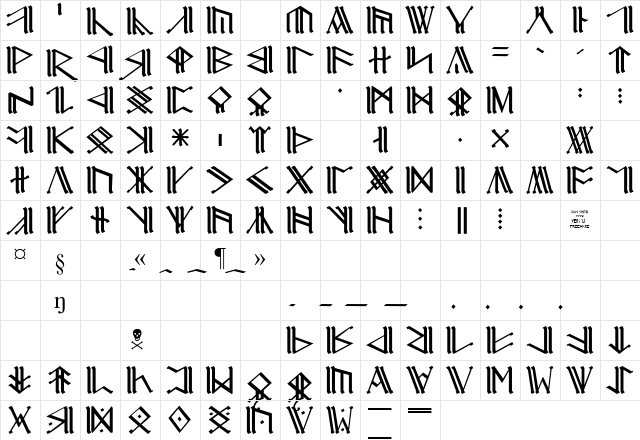
Complete Cirth Erebor Caps-1 Regular glyph index. Displaying only characters natively supported by Cirth Erebor Caps-1 Regular font.
Cirth Erebor Caps-1 is a composed and adaptable typeface that performs quietly and consistently across a wide range of design contexts.